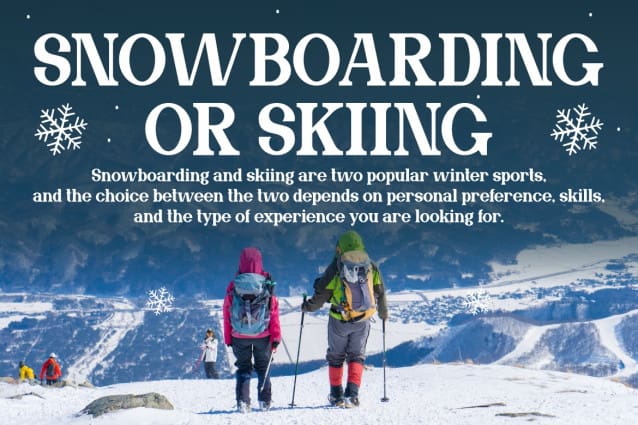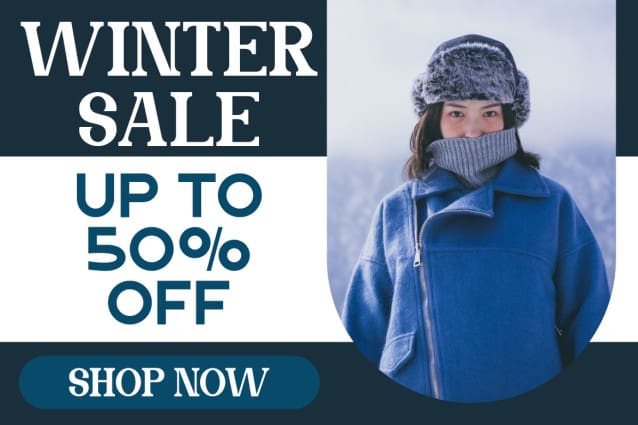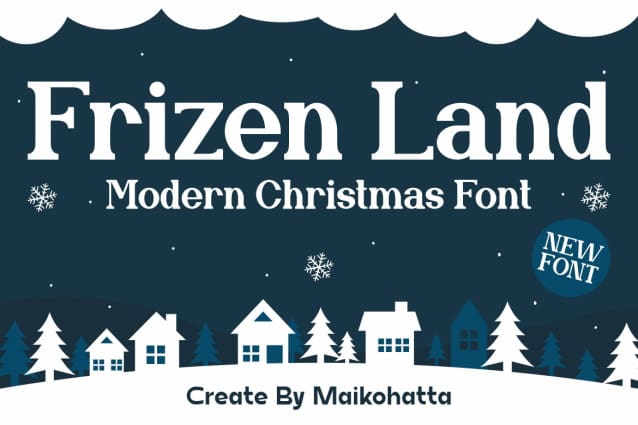
Frizen Land Font
Frizen Land Font, this serif font is stylish and sophisticated. It has a classic feel with thin strokes, sharp angles, and elegant curves. It is perfect for any project looking to add a touch of class. This font is PUA encoded which means you can access all glyphs and swashes effortlessly!